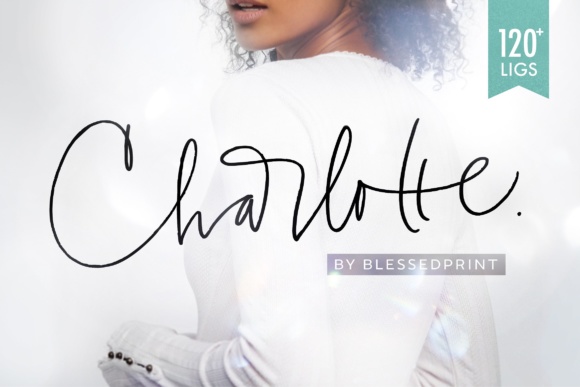
Introducing Charlotte Script Font – Where Elegance and Charm Intertwine
Unleash the beauty of Charlotte Script Font, a remarkable creation by Blessed Print. Designed to captivate and inspire, this script font is an exquisite blend of elegance and charm, promising to add a touch of sophistication to your creative endeavors.
Journey into a Realm of Timeless Appeal
With its graceful curves and flowing lines, Charlotte Script Font exudes an aura of timeless appeal. Each letter is meticulously crafted to evoke a sense of artistry, imbuing your designs with a touch of classic beauty that transcends time.
The Allure of Versatility: A Muse for Diverse Creations
Charlotte Script Font is a versatile chameleon, effortlessly adapting to a myriad of design projects. Whether you're crafting wedding invitations, designing captivating blogs, or creating eye-catching logos, this font will be your trusty companion, transforming your ideas into stunning realities.
The Perfect Match for T-Shirt Designs: Where Self-Expression Thrives
Unleash your creativity and let your T-shirts speak volumes with Charlotte Script Font. Its enchanting characters will effortlessly elevate your designs, transforming simple garments into canvases of self-expression. Make a statement, share a message, or simply bask in the beauty of written words brought to life with Charlotte's allure.
Dive into a World of Endless Possibilities
Charlotte Script Font is more than just a font; it's an open door to a world of limitless possibilities. Let your imagination soar as you explore new horizons of design, crafting projects that are not only visually appealing but also deeply meaningful.